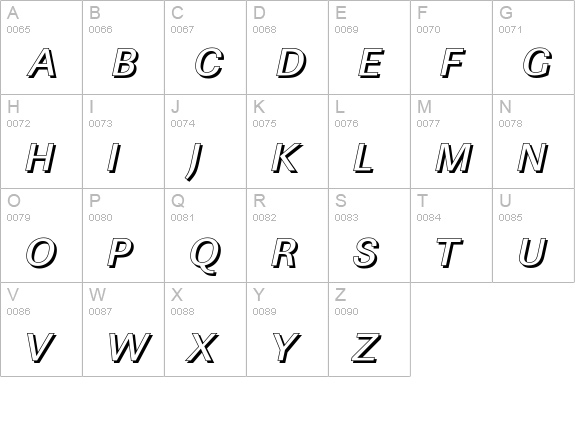
LinearSh-Medium-Italic is a balanced, medium-weight, italic variant in the LinearSh typeface family \xE2\x80\x94 well suited to sub-headlines, navigation, and balanced editorial work.
Introducing LinearSh-Medium-Italic font, a sophisticated and elegant typeface designed for modern projects that require a touch of finesse. Its sleek lines and gentle curves create a sense of harmony and balance, making it perfect for a wide range of design applications. This stylish font exudes a sense of professionalism and sophistication, making it ideal for branding, editorial design, and more. The italic style adds a touch of flair and elegance, making your text stand out in a subtle yet impactful way. The best part? LinearSh-Medium-Italic font is available for free download at FontsMarket.com. So whether you're a designer looking to elevate your projects or a business owner seeking a polished look for your branding, this font is the perfect choice. Download it today and add a touch of sophistication to your designs!